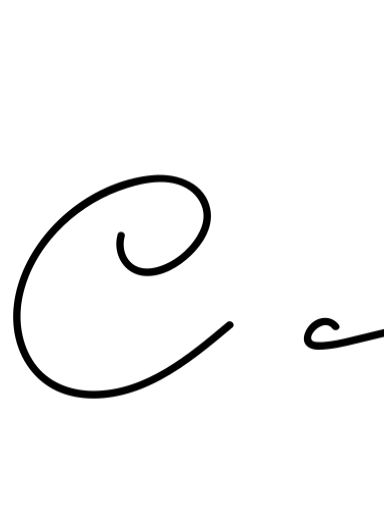
Introducing Calina Font: The Epitome of Elegance and Sophistication
In the realm of typography, few fonts manage to convey the perfect blend of elegance, minimalism, and personal touch. Calina Font, a modern handwritten script, is one such exceptional typeface that has captured the hearts of designers and brands alike. With its smooth monoline structure and extended swashes, Calina Font is the ideal choice for those seeking to add a touch of sophistication and luxury to their designs.
The Characteristics of Calina Font
Calina Font boasts a unique set of characteristics that set it apart from other script fonts. Its smooth monoline structure gives it a fluid, effortless look that exudes elegance and refinement. The extended swashes add a touch of drama and flair, making it perfect for headlines, titles, and emphasis. The natural rhythm of each letterform flows gracefully, creating a sense of movement and fluidity that draws the reader in.
Key Features of Calina Font
- Smooth Monoline Structure: A fluid, connected script that gives Calina Font its signature elegance.
- Extended Swashes: Add a touch of drama and flair to your designs with Calina Font’s beautiful swashes.
- Natural Rhythm: Each letterform flows gracefully into the next, creating a sense of movement and fluidity.
- Delicate and Luxurious: Calina Font is perfect for adding a touch of sophistication and luxury to your designs.
Use Cases for Calina Font
Calina Font’s versatility makes it suitable for a wide range of design applications. Here are some of the most popular use cases for this beautiful script font:
Perfect for:
- Wedding Invitations: Add a touch of elegance and romance to your wedding invitations with Calina Font.
- Name Cards: Create beautiful, sophisticated name cards for special events and occasions.
- Brand Signatures: Elevate your brand’s visual identity with Calina Font’s luxurious, high-end feel.
- Lifestyle Blogs: Add a touch of femininity and sophistication to your lifestyle blog with Calina Font.
- Feminine Logos: Create a beautiful, elegant logo for your brand with Calina Font.
Why Choose Calina Font?
With so many script fonts available, why choose Calina Font? Here are just a few reasons why Calina Font stands out from the crowd:
What Sets Calina Font Apart
- Unique and Exclusive: Calina Font’s smooth monoline structure and extended swashes make it a truly unique and exclusive typeface.
- Elegant and Sophisticated: Calina Font exudes elegance and sophistication, making it perfect for high-end brands and designs.
- Versatile: Calina Font is suitable for a wide range of design applications, from wedding invitations to lifestyle blogs.
- Easy to Read: Despite its elegant and cursive nature, Calina Font remains easy to read, making it perfect for body text and headlines.
Tips for Using Calina Font
To get the most out of Calina Font, here are a few tips to keep in mind:
Getting the Most Out of Calina Font
- Use it Sparingly: Calina Font is a statement font, so use it sparingly to make a maximum impact.
- Pair it with a Sans-Serif Font: Pair Calina Font with a sans-serif font to create a beautiful contrast and add visual interest.
- Experiment with Swashes: Don’t be afraid to experiment with Calina Font’s extended swashes to add a touch of drama and flair.
- Pay Attention to Kerning: Pay attention to kerning to ensure that Calina Font looks its best and remains easy to read.
In conclusion, Calina Font is a modern handwritten script that embodies elegance, minimalism, and personal touch. With its smooth monoline structure and extended swashes, this script font is ideal for wedding invitations, name cards, brand signatures, lifestyle blogs, and feminine logos. Whether you’re looking to add a touch of sophistication and luxury to your designs or simply want to create a beautiful, elegant visual identity for your brand, Calina Font is the perfect choice.